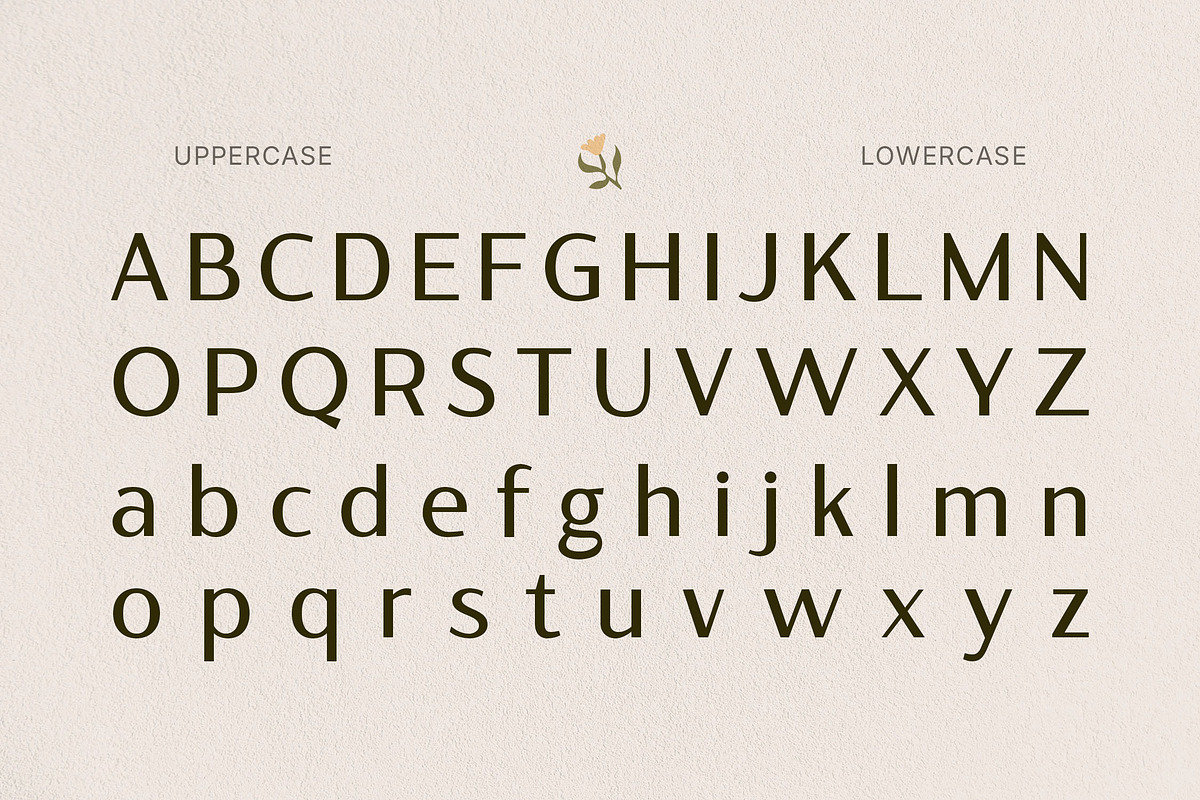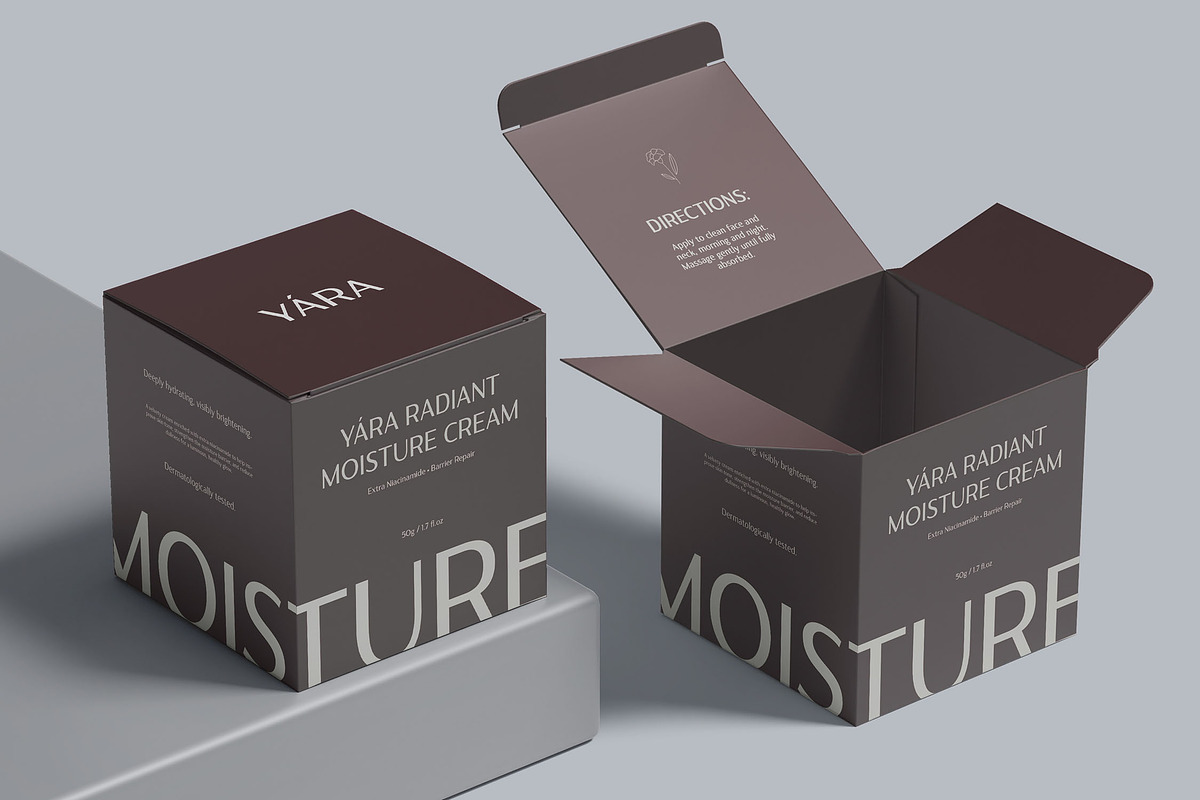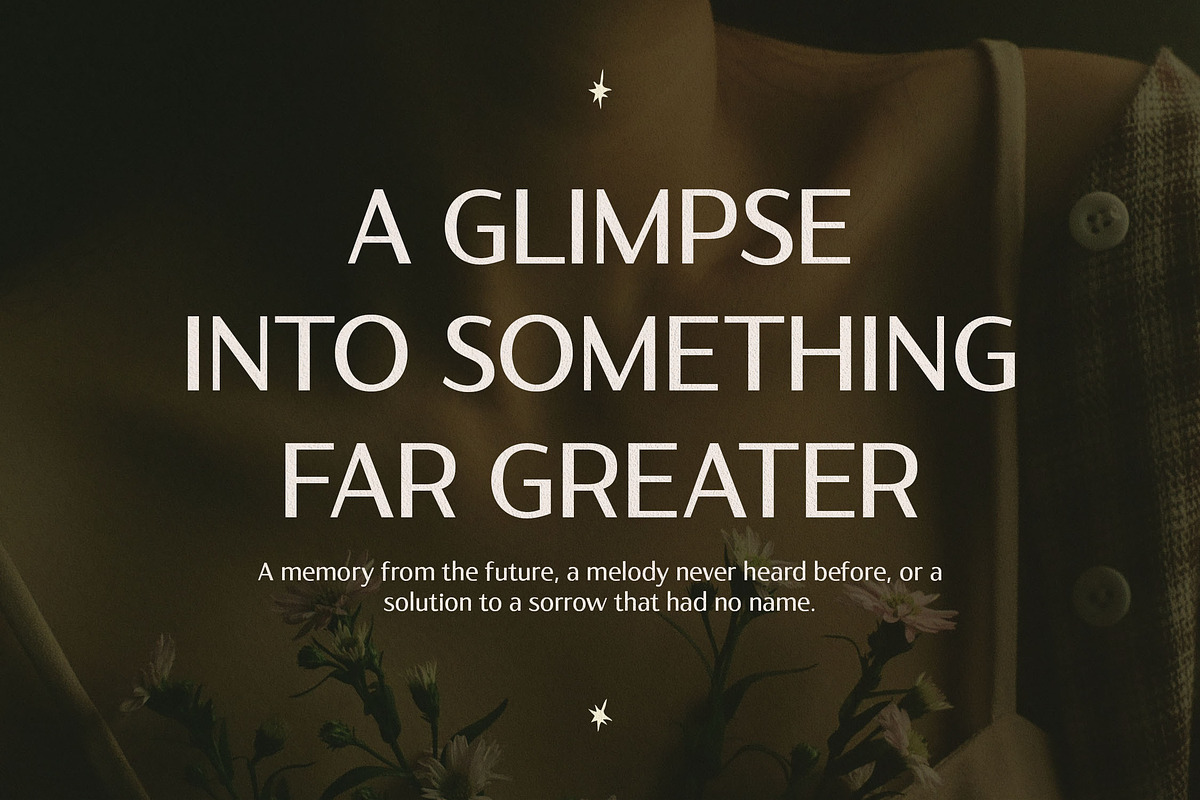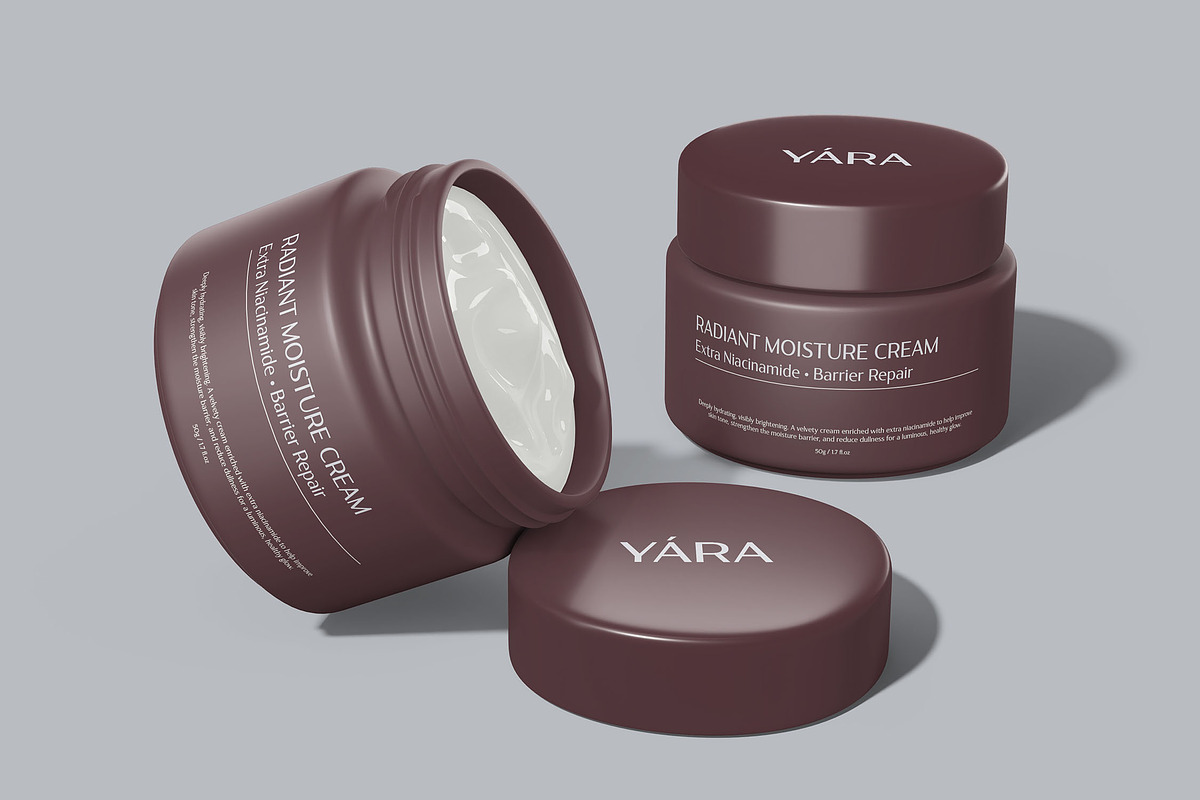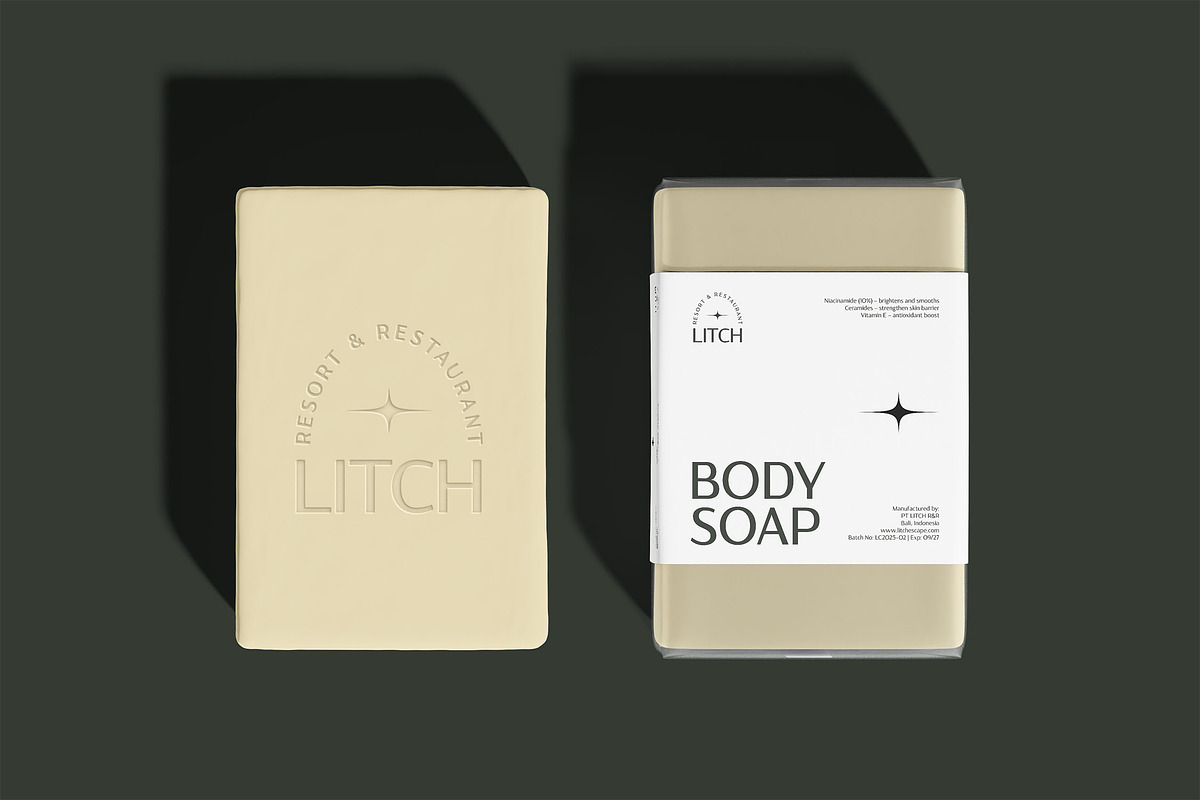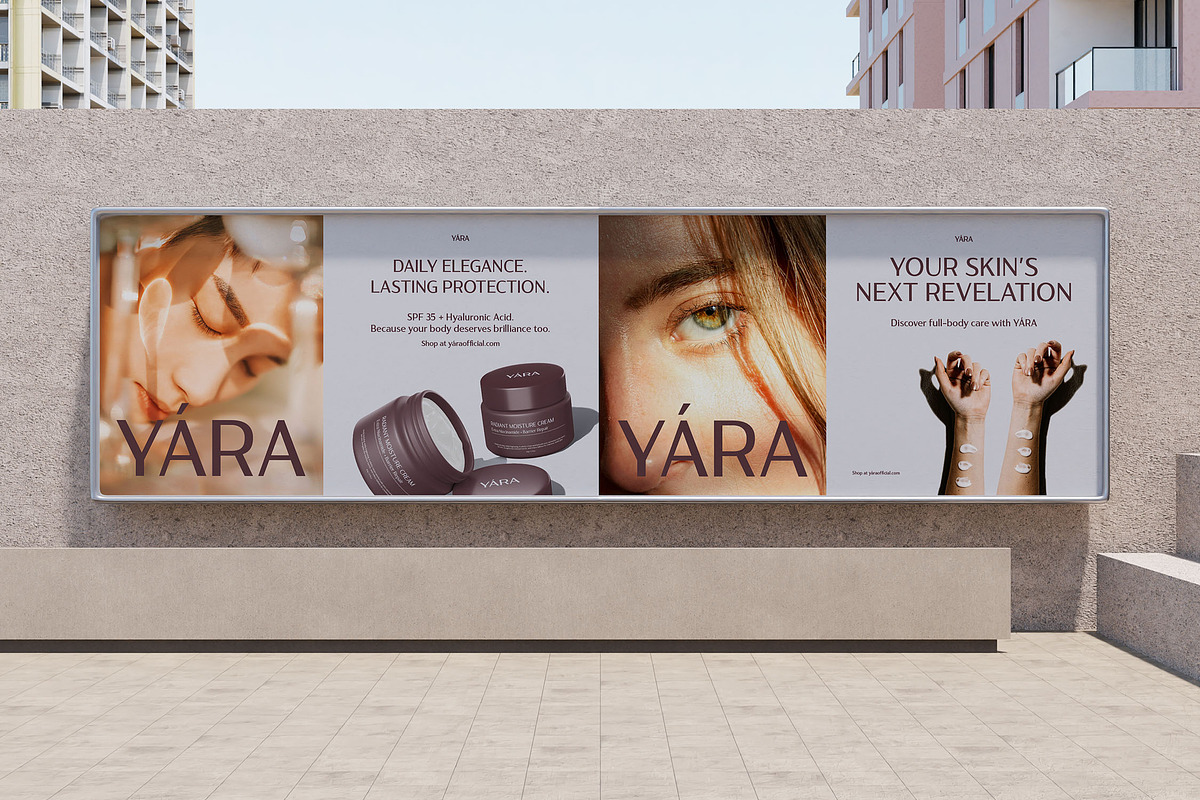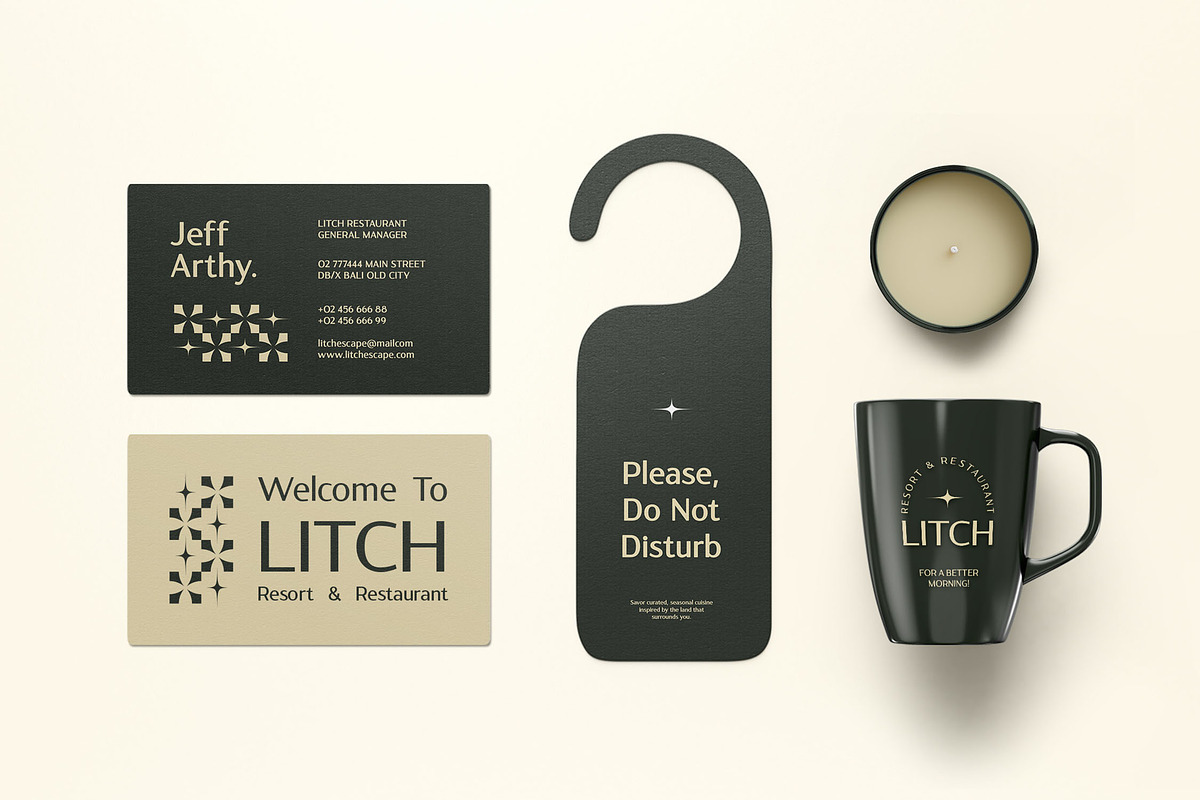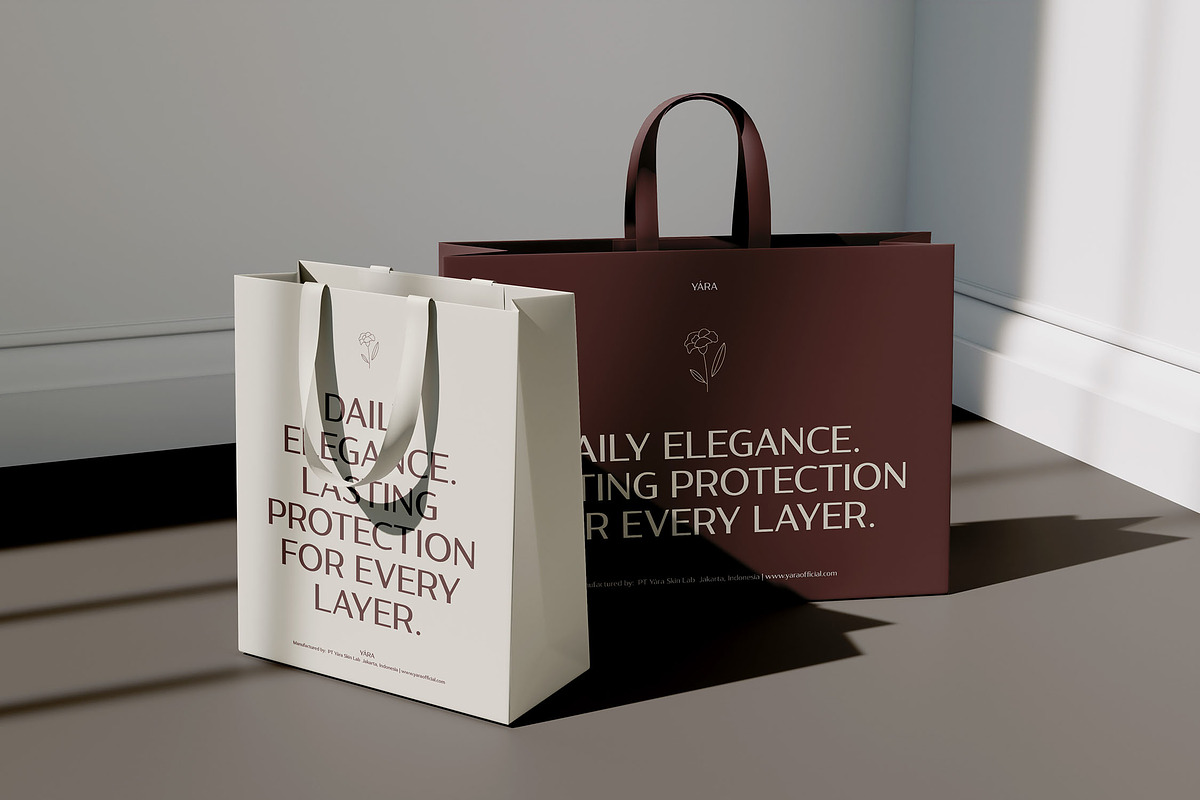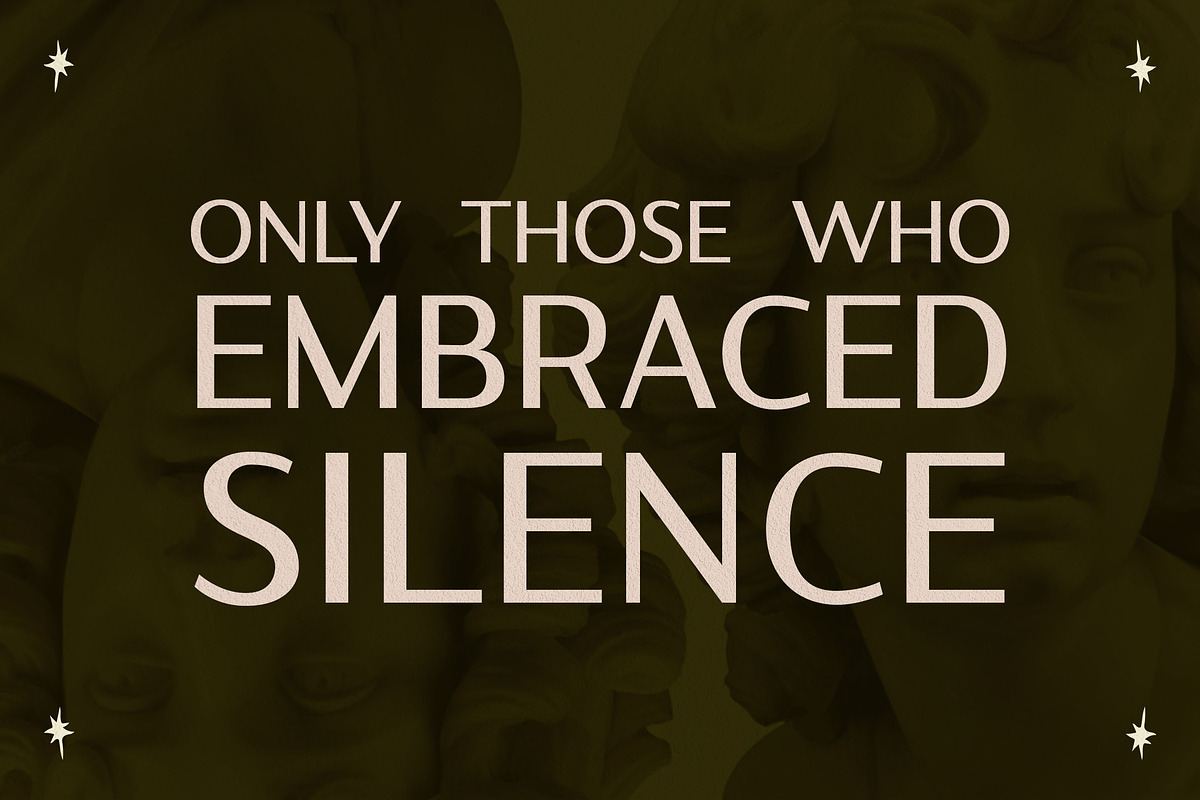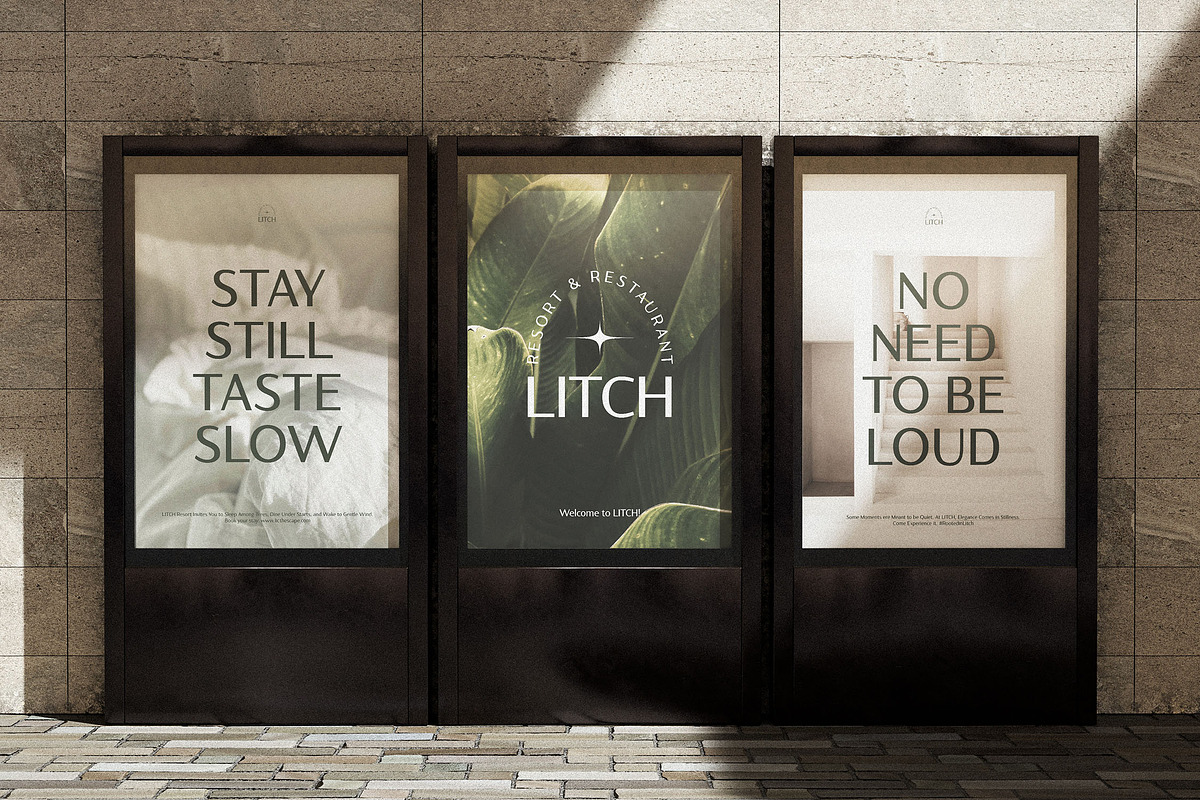
Sqindra - Luxury & Elegant Sans
Sqindra - Luxury & Elegant Sans Serif Font - Modern Beauty Minimalist Clean Display Font
Sqindra is a meticulously crafted luxury and elegant sans serif font designed to elevate your creative projects. With its clean lines and minimalist aesthetic, Sqindra exudes beauty and modernity, making it ideal for high-end branding, editorial design, invitations, headlines, packaging design, logos, skincare brands, posters, advertising campaigns, magazine and any project that offers a harmonious blend of classic elegance and contemporary simplicity, ensuring your message is delivered with clarity and impact.